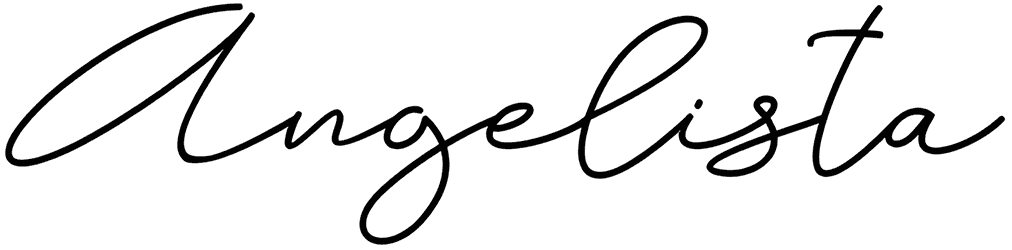
Angelista Font
Sometimes you need to cement your credentials as a professional graphic artist by adding your own personalized signature to all of your creative ideas, and in this regard, a cursive script for the same as Angelista can be totally helpful.
Aside from the lack of legibility, due to its rounded and crooked characters, it can bring a sense of delicacy, classicism, or softness to any kind of graphic content, including gift cards, wedding invitations, logos, packaging, or social media posts.